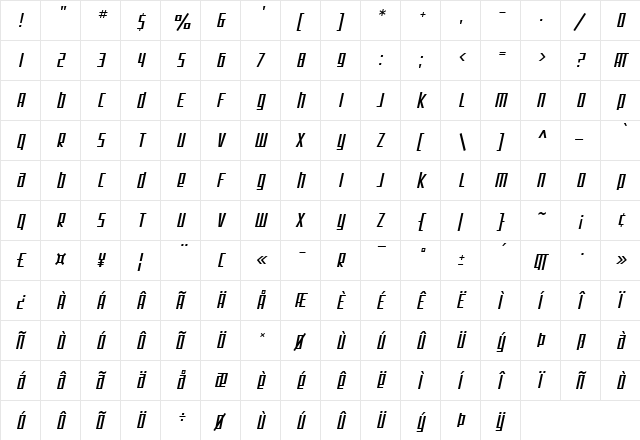
SF Square Root Oblique
| Designer | ShyFonts Type Foundry |
Design Context for SF Square Root Typeface
SF Square Root offers clean, dependable letterforms without strong stylistic allegiance, making it a practical choice for designers who need flexibility. The slanted form adds forward momentum and visual energy.